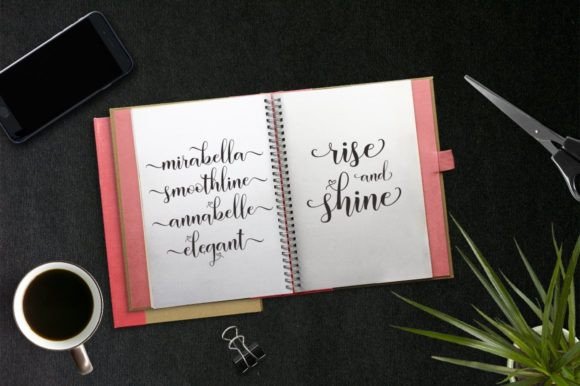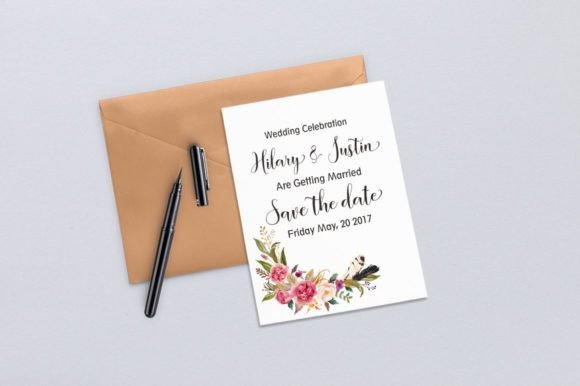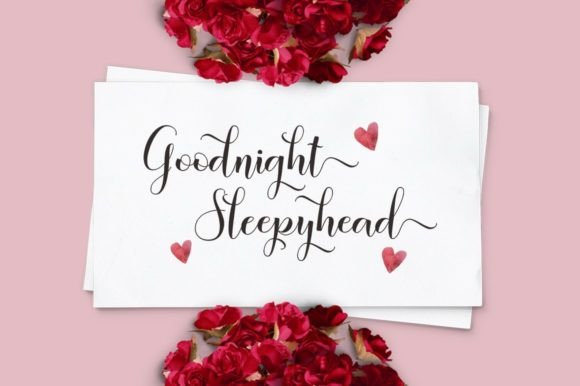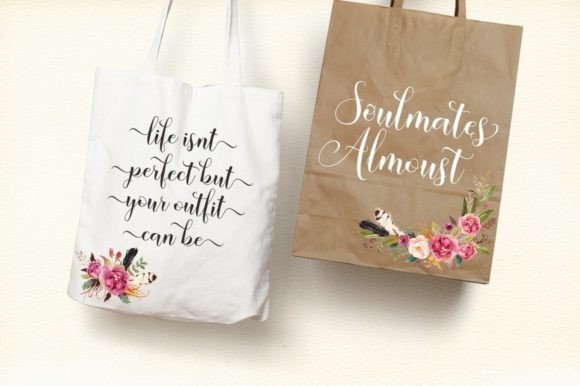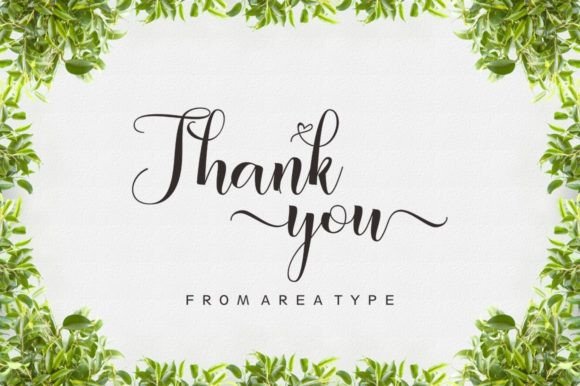
Discover the Allure of Amberland Font
There’s nothing quite like the thrill of discovering a new font that sparks your creativity and sets your imagination ablaze. For many designers, it’s that moment when the perfect combination of style, elegance, and flair comes together, and suddenly, the possibilities seem endless. Whether you’re crafting a wedding invitation, designing a logo, or creating a poster for a new product launch, the right font can make all the difference.
Enter the Amberland Font, a beautiful, modern calligraphic script that’s sure to captivate your audience. With its dynamic and pretty swashes, this font is perfect for a wide range of applications, from titles and signatures to logos, signage, and labels. As a designer, you’ll love the versatility and expressiveness of the Amberland Font, which makes it an invaluable addition to your toolkit.
Amberland Font Key Features
- Unique Characteristics: Distinctive, hand-drawn style with intricate details and subtle texture, giving it a warm and inviting feel.
Amberland Font Review
I recently had the chance to work with the Amberland Font, and I must say it’s an interesting addition to my design arsenal. Here are some thoughts on what works well and what doesn’t.
- The Amberland Font has a unique, earthy feel that’s perfect for outdoor or nature-themed projects.
- The font is highly customizable, with a range of weights and styles to choose from.
- The kerning and spacing are well-designed, making it easy to read even in smaller sizes.
- The font can feel a bit too ornate for some projects, which may make it difficult to use in more minimalist designs.
- The range of languages supported is limited, which may be a problem for designers working on multilingual projects.
- The font doesn’t have as many glyphs as some other fonts, which can make it tricky to use in complex layouts.
Overall, I’d say the Amberland Font is a solid choice for designers looking for a unique, earthy feel. While it may not be perfect for every project, it’s a great addition to any design toolbox. With a bit of caution and planning, it can be a powerful tool for creating beautiful and effective designs.
The Amberland Font is ideal for:
- Travel and adventure branding.
- Outdoor and nature-inspired designs.
For optimal results, use the Amberland Font in combination with earthy colors and natural textures.
Pacifico is a beautiful, elegant script font perfect for creating a warm and inviting atmosphere. It’s ideal for use in branding, advertising, and editorial design. Pacifico is more elegant and refined compared to Amberland Font, which has a more rustic feel.
Great Vibes is a stylish, modern script font suitable for a wide range of design applications. It’s perfect for creating a sophisticated and stylish look, making it ideal for use in luxury branding, packaging, and web design. Great Vibes is more modern and sleek compared to Amberland Font, which has a more vintage feel.
Carolyna Pro is a sophisticated, elegant script font ideal for use in high-end branding, advertising, and editorial design. It’s perfect for creating a luxurious and refined atmosphere, making it a great alternative to Amberland Font for designers who want to add a touch of elegance to their designs.
Alex Brush is a beautiful, handwritten script font suitable for use in creative and artistic design applications. It’s perfect for creating a unique and personal look, making it ideal for use in branding, packaging, and web design. Alex Brush is more artistic and expressive compared to Amberland Font, which has a more traditional feel.
What is the recommended font size for optimal readability with the Amberland Font?
The recommended font size for optimal readability with the Amberland Font is between 12 and 14 points for body text and 18 to 24 points for headings. However, this may vary depending on the specific design requirements and intended audience. Experiment with different font sizes to find the optimal balance for your project.